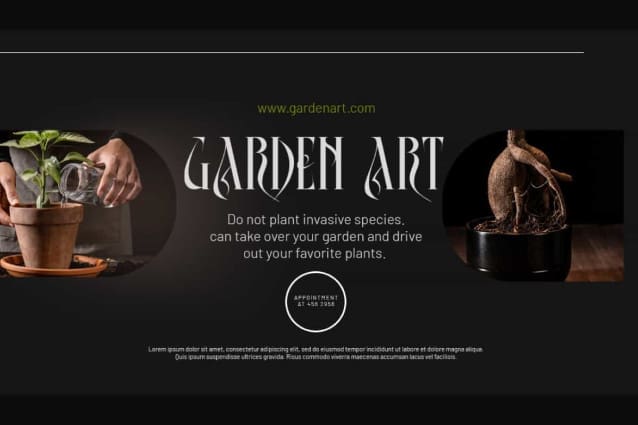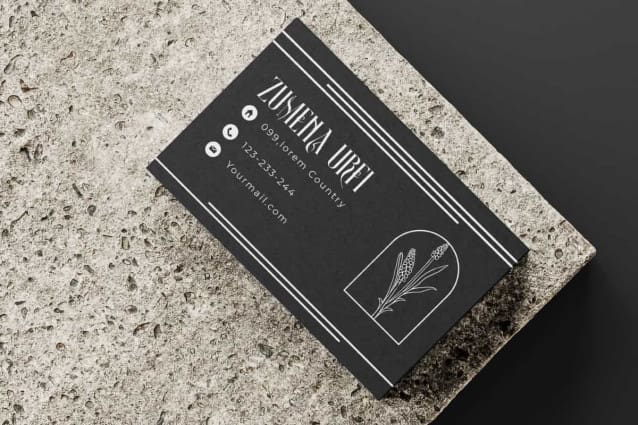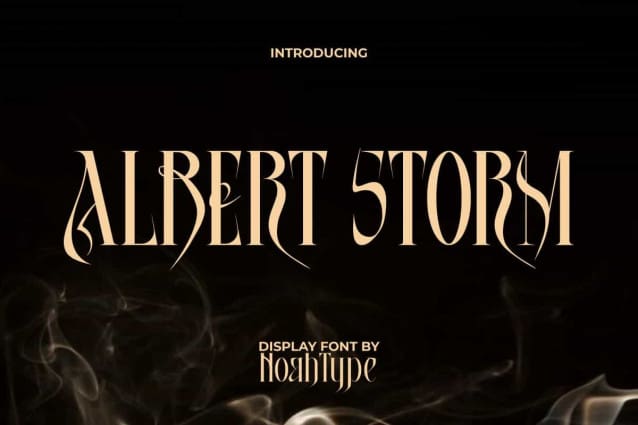
Albert Storm Font
Albert Storm Font is a sharp and elegant serif display font. This font has tall letter characters with sharp edges so it can give a mysterious impression. It will be perfect for any designs, such as brand image, cover, custom design, invitation, label, marketing material, menu, poster, product packaging, quotes, signage, stationery, web, and many more!
Albert Storm Font includes full set of Uppercase and Lowercase Basic Characters, Numerals and Punctuation. This font will be perfect choice for many industries, such as advertising, beauty product, cafes, fashion, jewelry and accessories, perfume, photography, printing, publishing, restaurant, etc.